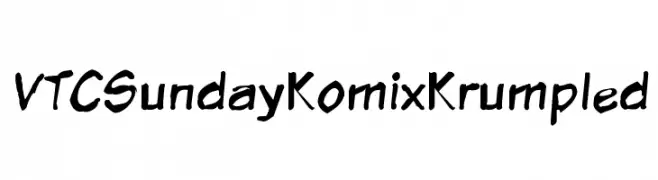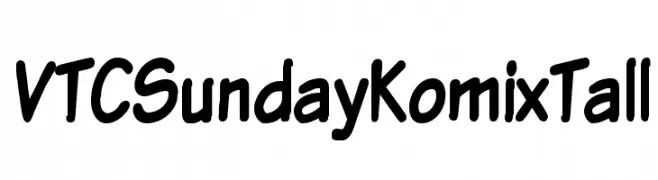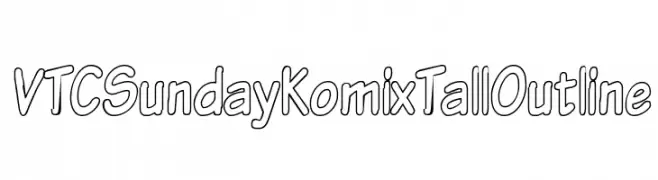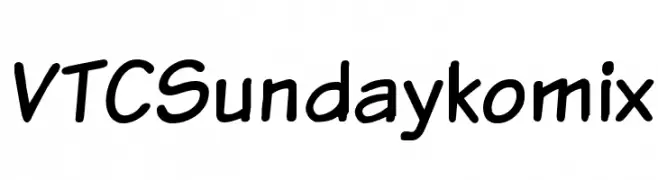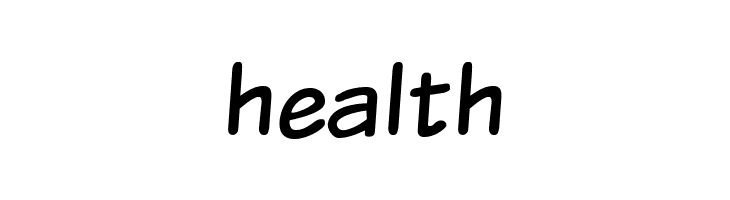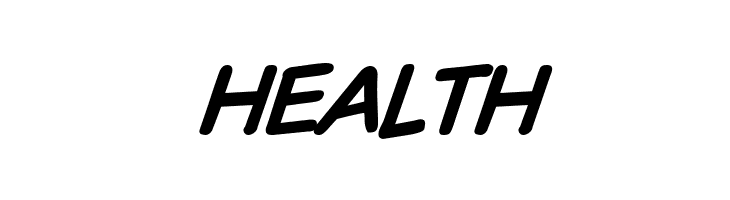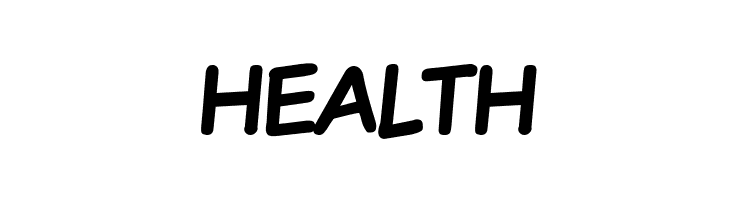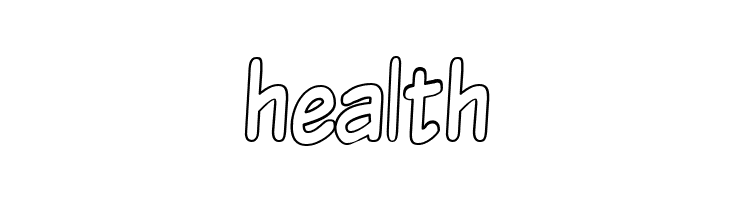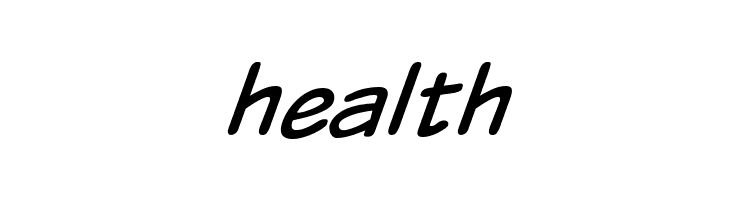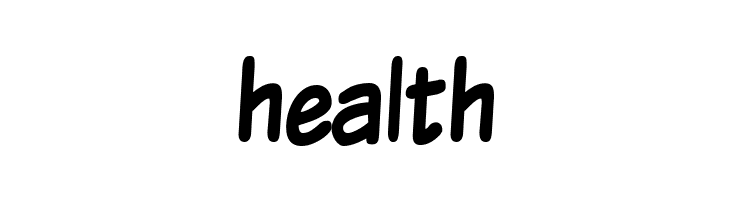
VTCSundaykomixItalic Font
A playful, italicized handwritten font with smooth, rounded strokes.
VTCSundaykomixBoldItalic Font
A bold, italicized handwritten font with a playful and dynamic style.
VTCSundayKomixTall Font
A bold, playful handwritten font with a comic-like style.
VTCSundaykomixBold Font
A bold, playful handwritten font with rounded edges and a casual style.
VTCSundaykomix Font
A playful, hand-drawn font with rounded characters and a casual vibe.
VTCSundaykomixcaps Font
A playful, comic-style handwritten font with bold, rounded strokes.
VTCSundaykomixcapsboldItalic Font
A bold, italicized font with a playful, comic-inspired style.
VTCSundaykomixcapsItalic Font
A playful, italicized handwritten font with a comic-like style.
VTCSundaykomixcapsBold Font
A bold, comic-style font with a playful, hand-drawn appearance.
VTCSundayKomixTallOutline Font
A playful, comic-style outline font with tall, rounded characters.
VTCSundayKomixKrumpled Font
A bold, hand-drawn font with a playful, comic book style.